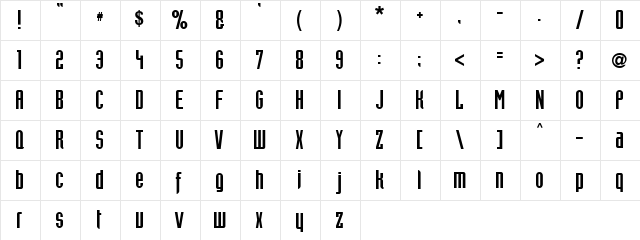
Trust This One Regular
Design Context for Trust This One Typeface
Trust This One offers clean, dependable letterforms without strong stylistic allegiance, making it a practical choice for designers who need flexibility.
Pro Tip: Pair Trust This One with a font of contrasting weight or personality to build a more expressive typographic hierarchy.